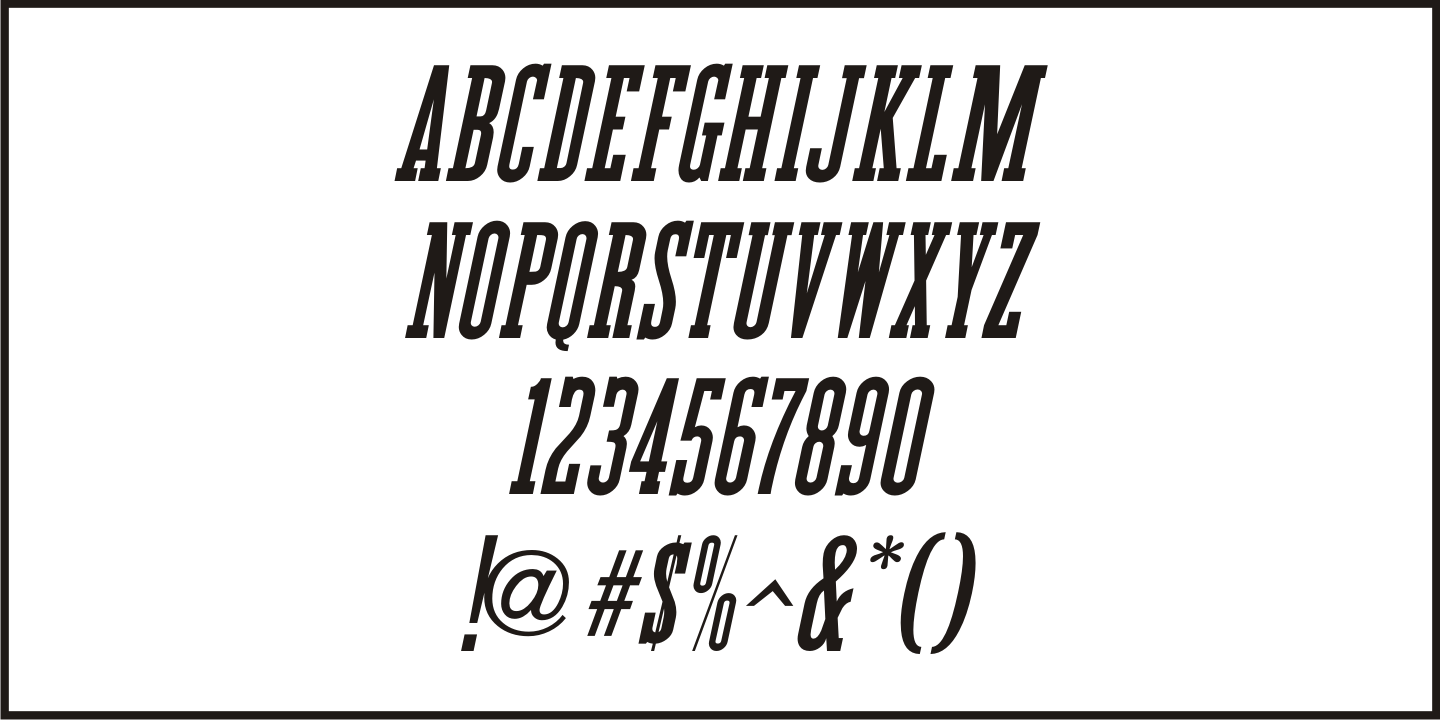
Tabloid News Font is ideal for attention-grabbing headlines, sensational magazine covers, dramatic news graphics, bold advertising campaigns, eye-catching poster designs, urgent announcement materials, breaking news broadcasts, provocative marketing graphics, striking editorial layouts, and any compelling project that demands immediate attention and the powerful visual impact of newspaper headline typography.
What makes Tabloid News Font exciting is its commanding presence that captures the urgent energy of breaking news and the irresistible pull of headlines that demand immediate attention. This typeface embodies the essence of journalistic impact with bold letterforms that seem to shout from newsstands and grab readers by the collar, creating an atmosphere of immediacy and compelling drama. The font's attention-grabbing character makes it perfect for brands and projects that want to communicate urgency, importance, and the kind of dramatic impact that stops people in their tracks.
The Tabloid News Font family includes multiple weights and headline variations, featuring regular, bold, and ultra-heavy versions along with condensed styles and alternate characters that maximize visual impact and readability. This comprehensive collection allows designers to create authentically impactful typography that maintains the font's signature commanding character while providing flexibility for various news media and attention-demanding design applications.
When exploring authentic newspaper typography, Tabloid News Font Free Download represents an exceptional opportunity to work with a typeface that genuinely captures the spirit of journalistic drama and headline impact. This font demonstrates innovative design thinking by incorporating the bold clarity and urgent energy that define both traditional newspaper design and the contemporary need for content that cuts through information overload.
Professional designers appreciate Tabloid News Font for its ability to instantly command attention and communicate urgency across various media and advertising platforms. The font's dramatic character makes it particularly effective for news organizations, advertising agencies, and marketing campaigns seeking to create memorable identities that resonate with audiences in crowded media environments where attention is the most valuable currency.
The contemporary appeal of Tabloid News Font lies in its perfect representation of media impact and attention-grabbing communication that becomes increasingly important in our information-saturated world. This typeface serves as a powerful tool for breaking through the noise and ensuring important messages receive the immediate attention they deserve.
For creative professionals working with media and advertising brands, Tabloid News Font represents the ultimate typography solution that brings authentic journalistic impact and headline drama to any application, ensuring designs reflect the commanding presence and urgent energy that define the most effective attention-grabbing communications and news media presentations.